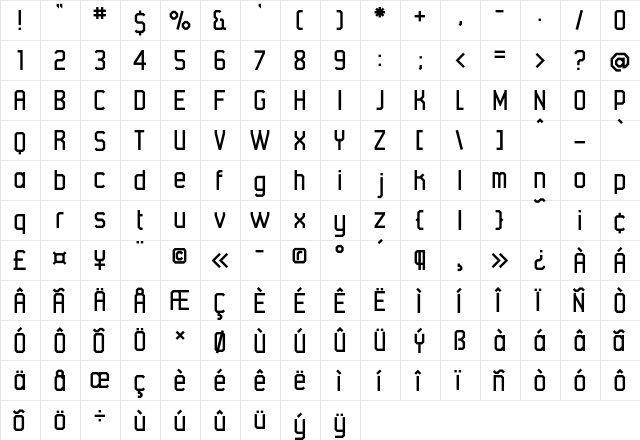
45degrees Regular
Design Context for 45degrees Typeface
45degrees is a composed and adaptable typeface that performs quietly and consistently across a wide range of design contexts.